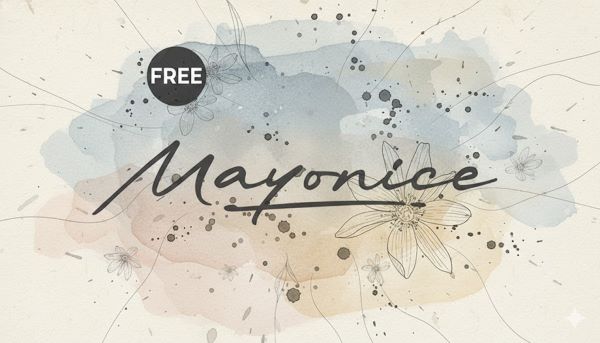
Mayonice Font
Mayonice Font is a lively handwritten typeface with smooth, flowing strokes and a playful, personal feel. Its casual, friendly letterforms make it perfect for invitations, quotes, logos, social media graphics, and creative branding. Mayonice adds warmth, character, and a charming handcrafted touch to any design.